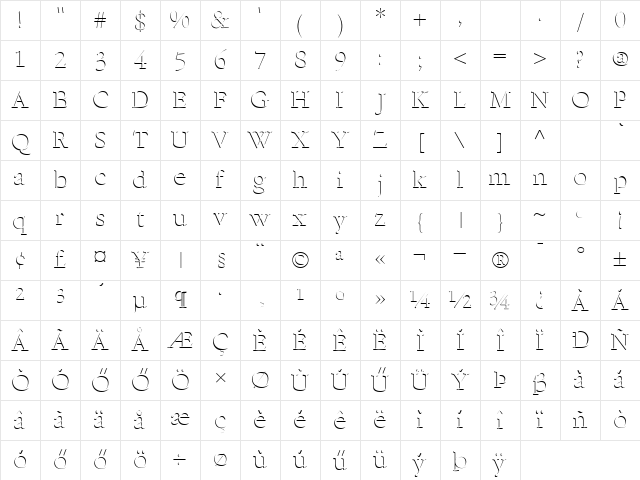
Hu_Embos Regular Free Font
Hu_Embos Regular
Design Context for Hu_Embos
Hu_Embos is a composed and adaptable typeface that performs quietly and consistently across a wide range of design contexts.